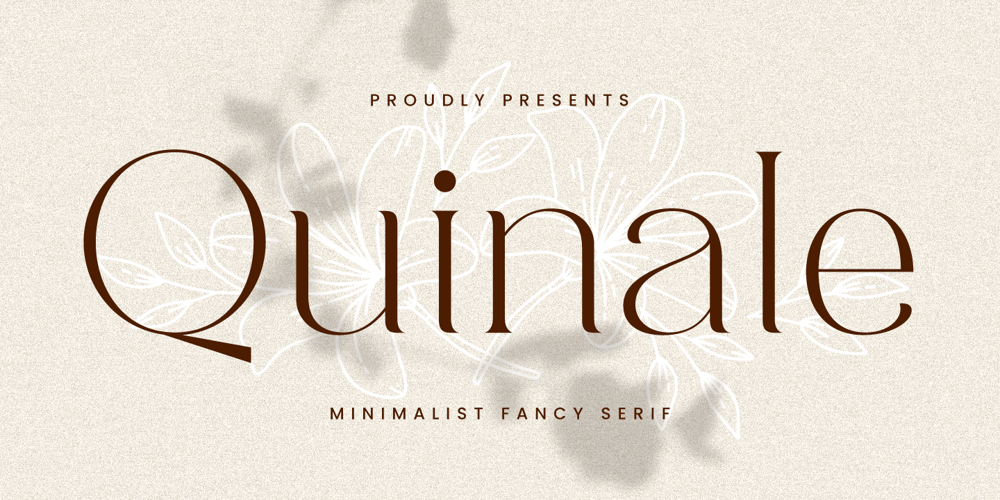
Quinale Font Family was designed by Novitasari Romli and published by Novitype. Quinale contains 1 styles and family package options. Quinale is a refined and elegant serif font designed to elevate your creative projects with a touch of sophistication. Its slight letterforms and stylish swashes exude luxury and grace, making it an ideal choice for high-end branding, fashion, and minimalist design.Whether you’re crafting a stunning logo, a memorable wedding invitation, or any design that needs elegance, Quinale offers the perfect balance of femininity and dramatic sense. Its versatility shines across various applications, from fashion branding to cards, labels, and more.What you’ll get : Uppercase Lowercase Numbers & symbols Punctuation Stylistic alternates Stylistic sets 01-07 Custom ligatures Multilingual support.